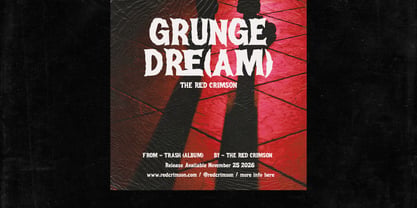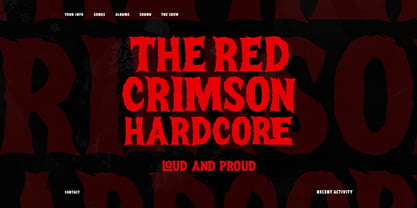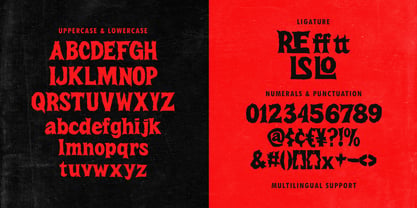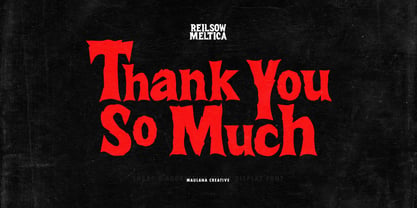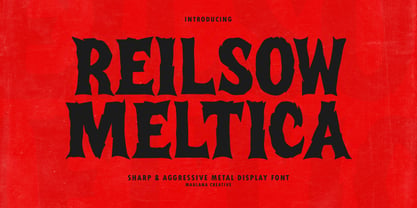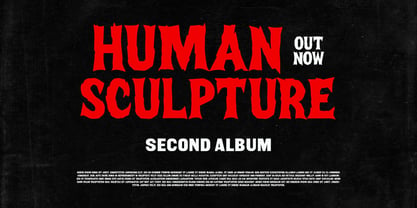
MC Reilsow Meltica
by Maulana Creative
The MC Reilsow Meltica Font Family was designed by Gilang Maulana and published by Maulana Creative. MC Reilsow Meltica contains 1 styles. More about this family
Shatter the silence with the raw, jagged power of Reilsow Meltica. Reilsow Meltica is a high impact display font specifically engineered for projects that demand an aggressive, edgy presence. Featuring sharp, thorny letterforms and a melted yet precise silhouette, this font captures the intense energy of underground music and street culture. It is the ultimate choice for designers looking to create bold, unforgettable headlines. Perfect for High-Octane Design: - Music Branding: Ideal for hardcore, death metal, grunge, and punk rock album. - Aggressive Logos: Build powerful identities for gaming, extreme sports, or high-energy brands. - Dynamic: Ensure your message stands out with a font that feels as loud as a concert.
Designers: Gilang Maulana
Foundry: Maulana Creative